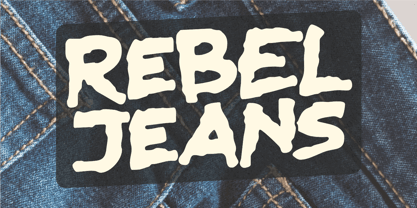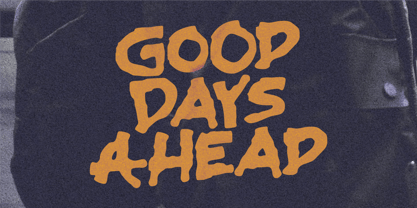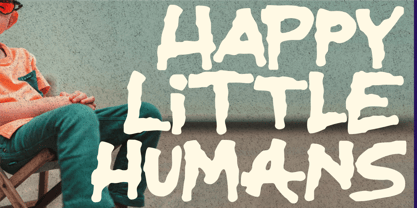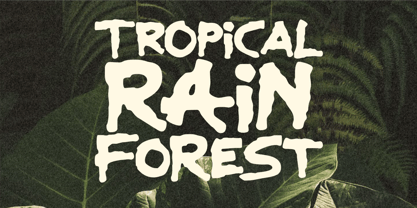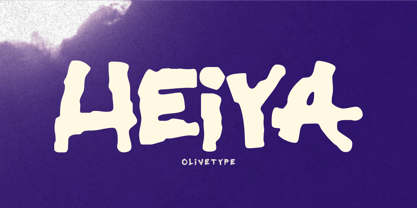
Heiya
by Olivetype
The Heiya Font Family was designed by Nurul Hidayani and published by Olivetype. Heiya contains 1 styles. More about this family
Heiya is a playful handmade display font that exudes a warm, organic character with a naturally imperfect touch. Drawing inspiration from hand-lettered signs, creative packaging, tropical adventures, and cheerful everyday designs, Heiya infuses a friendly and handcrafted personality into your projects. Its bold yet approachable shapes make it ideal for branding, logos, packaging, posters, apparel, stickers, labels, invitations, social media graphics, children’s products, café designs, and handmade goods. This font shines when you want your typography to convey a sense of fun, authenticity, casual creativity, and a human touch, rather than a perfectly polished look.
Designers: Nurul Hidayani
Foundry: Olivetype